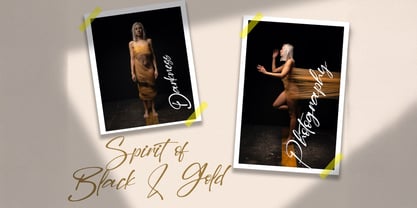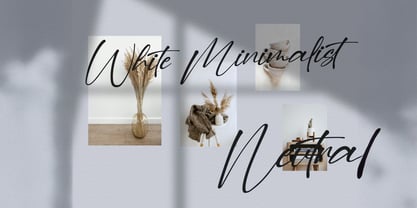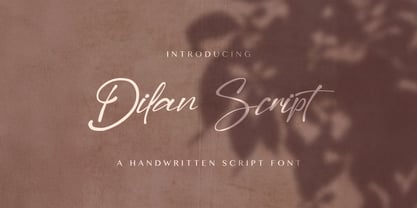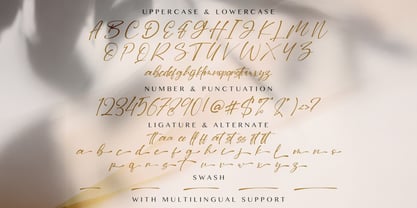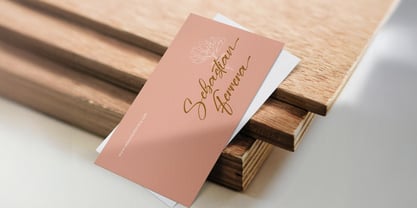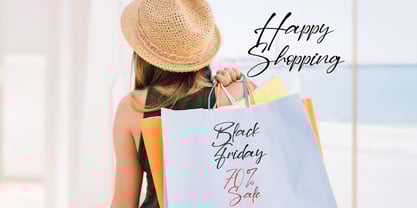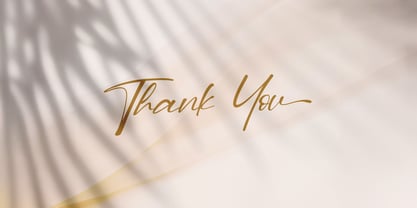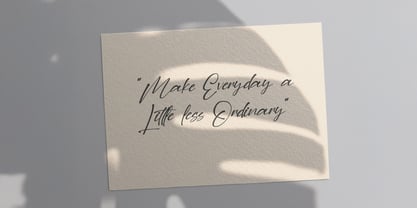
Dilan Script
The Dilan Script Font Family was designed by Virgiawan Listanto and published by Stringlabs Creative Studio. Dilan Script contains 1 styles. More about this family
Dilan Script is a sleek and contemporary modern script font that blends elegance with a touch of sophistication. Its smooth, flowing strokes and stylish curves create a refined yet approachable look, perfect for adding personality to any design project.